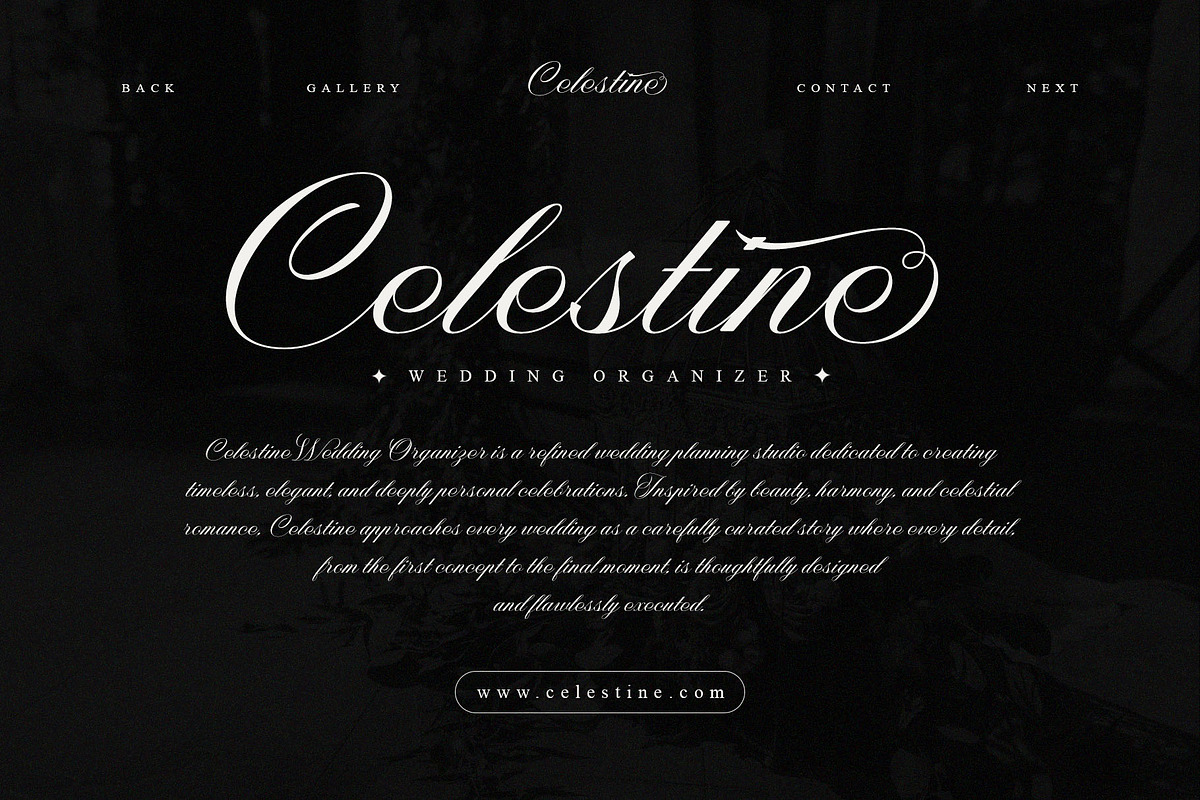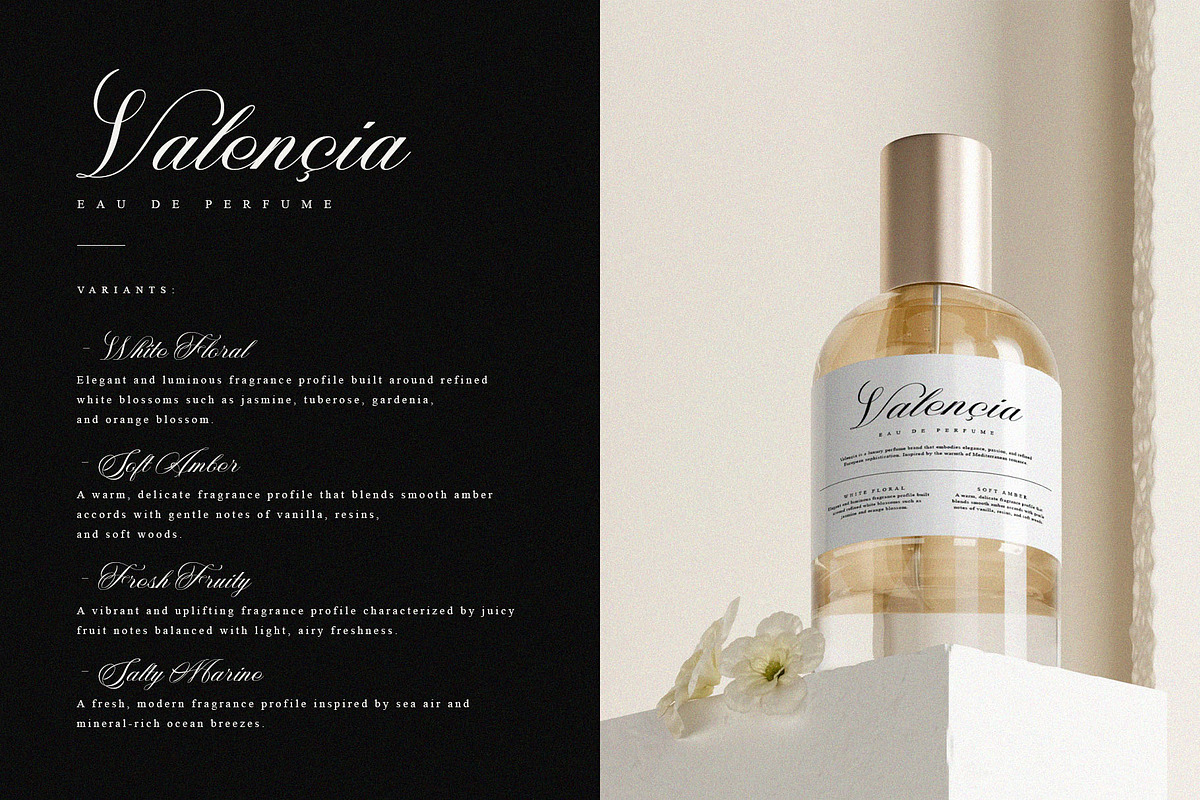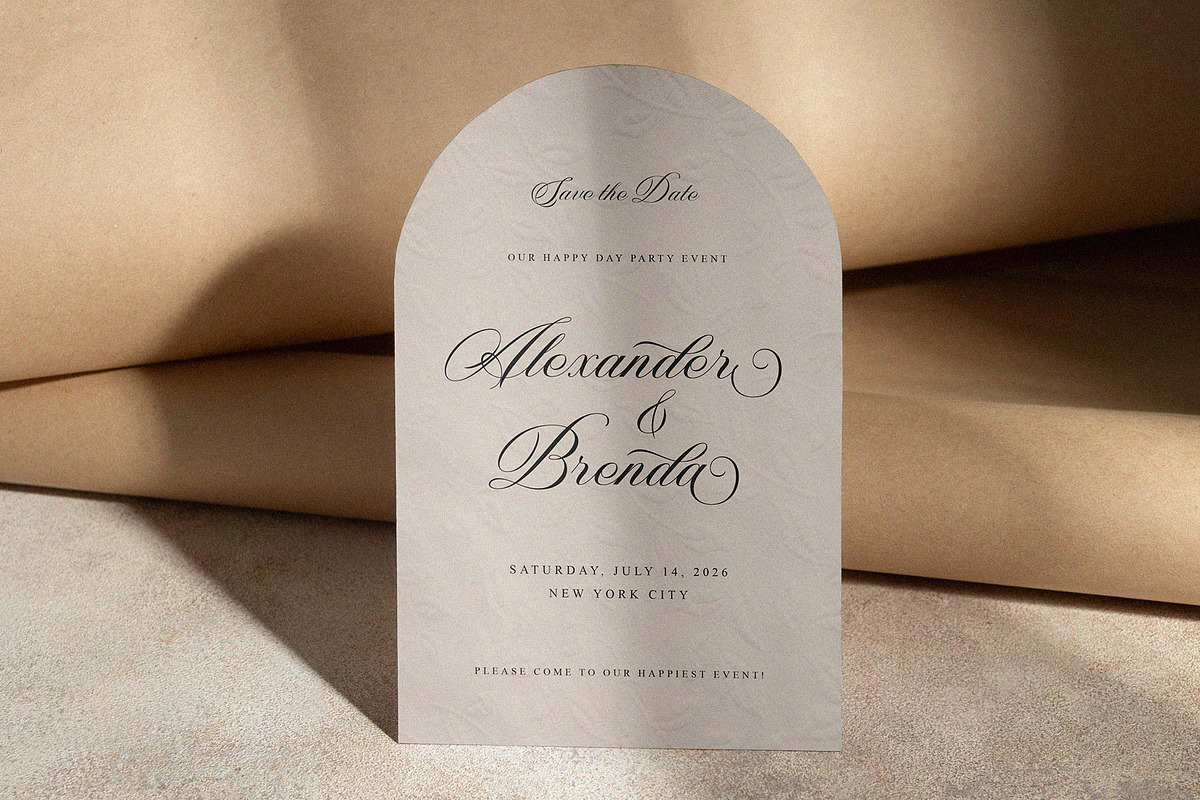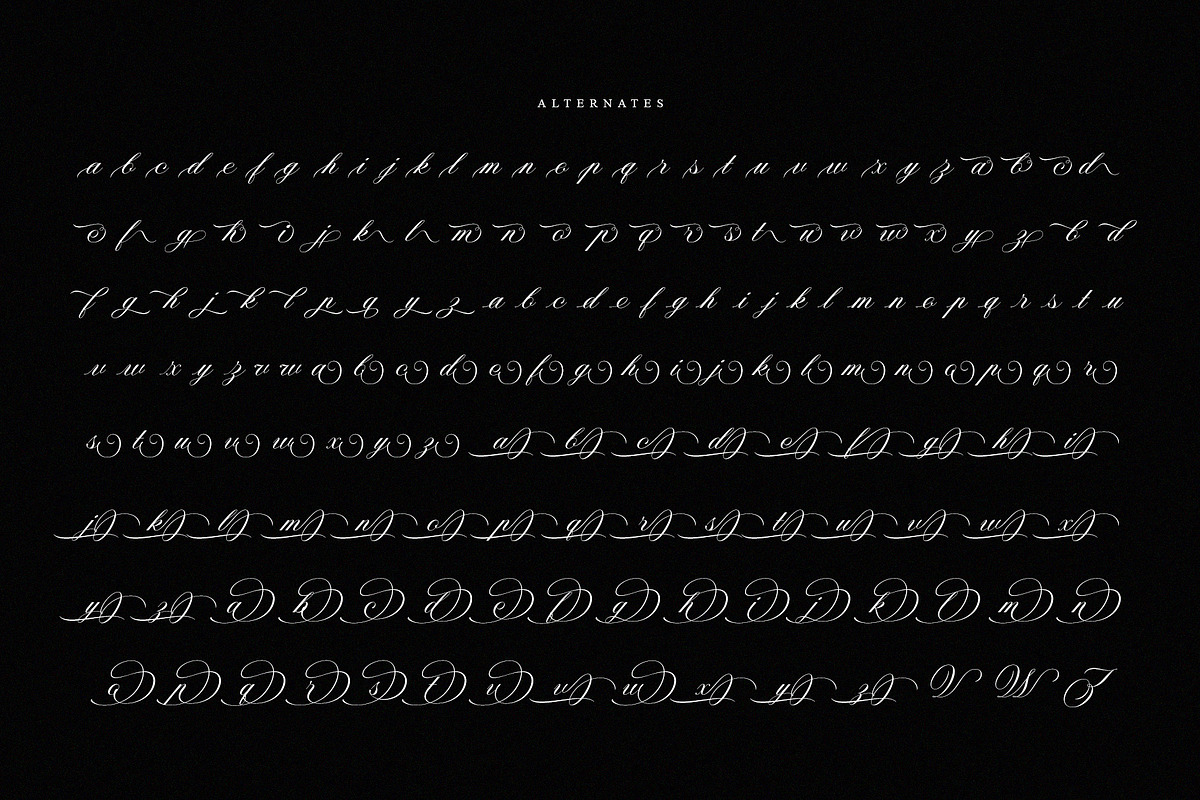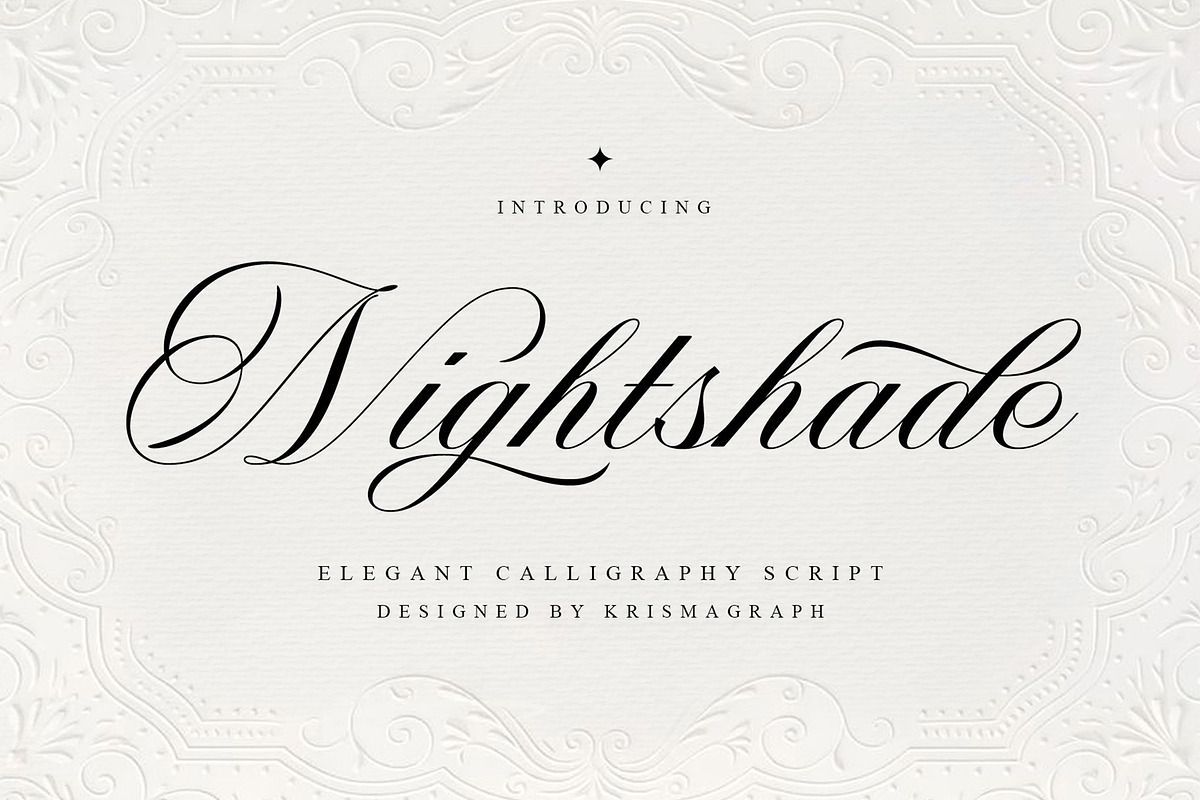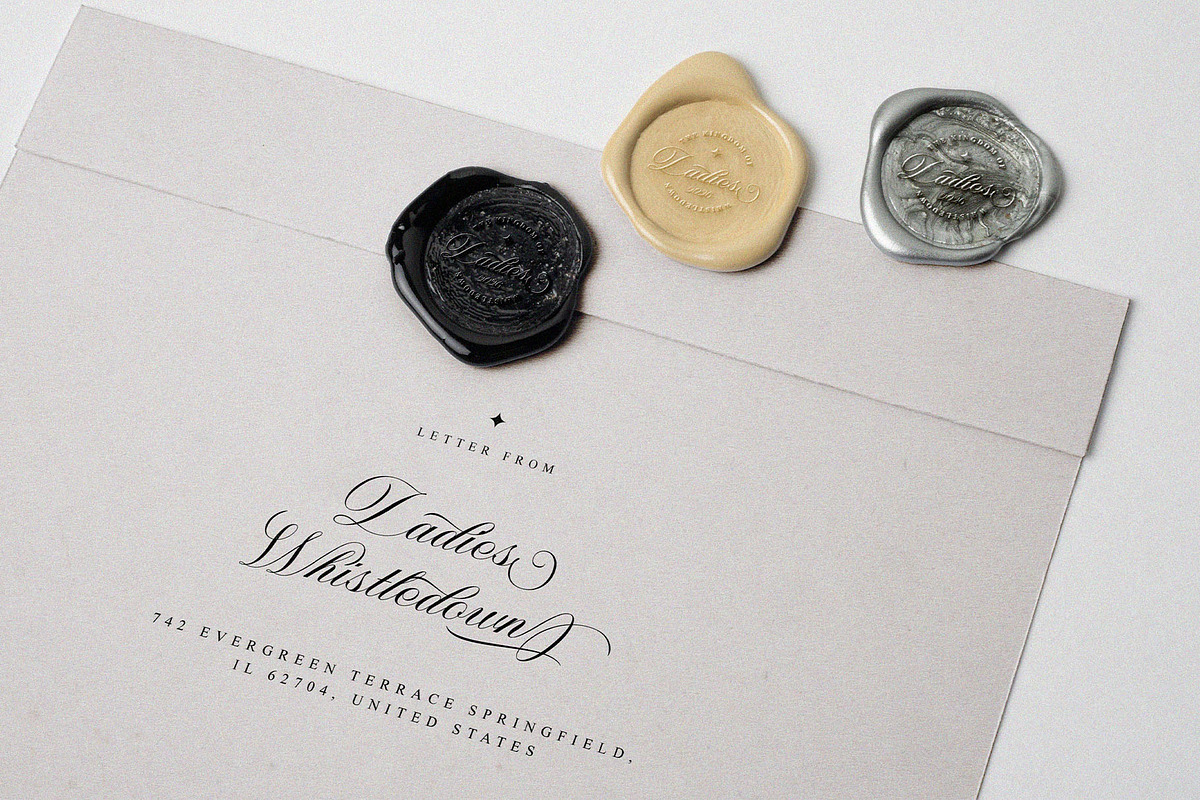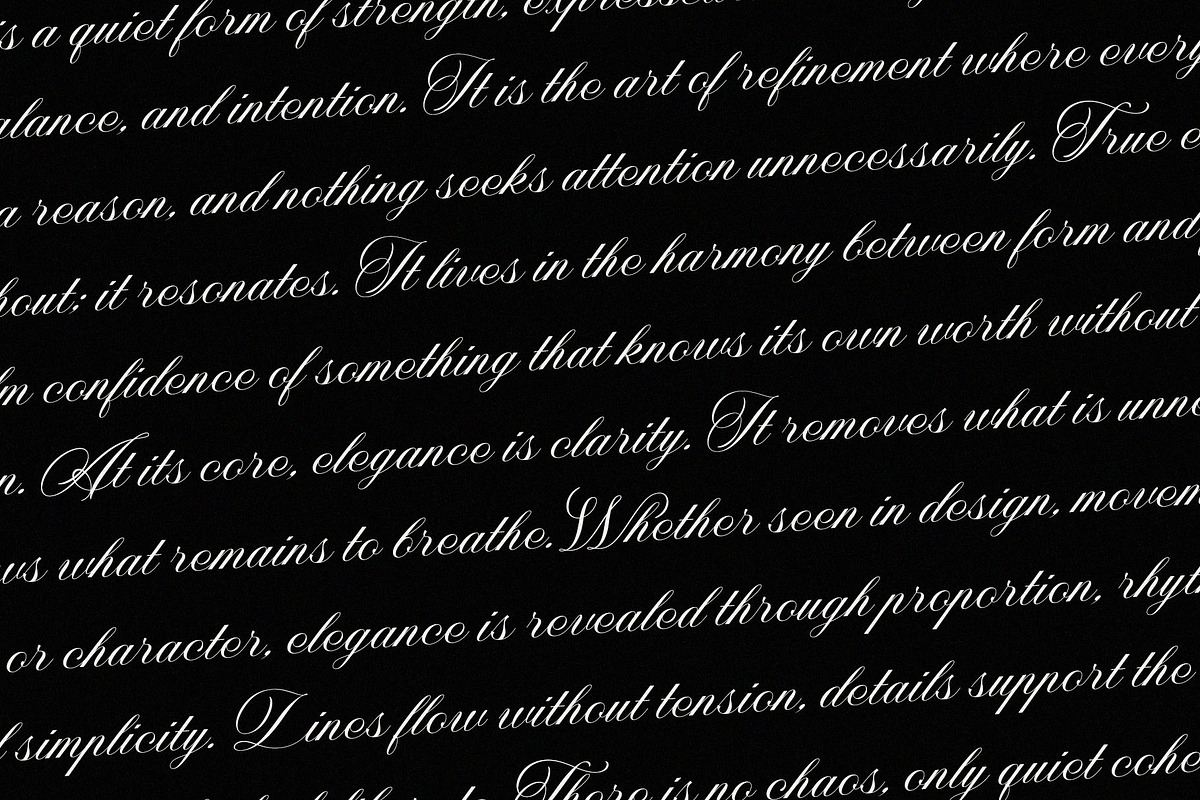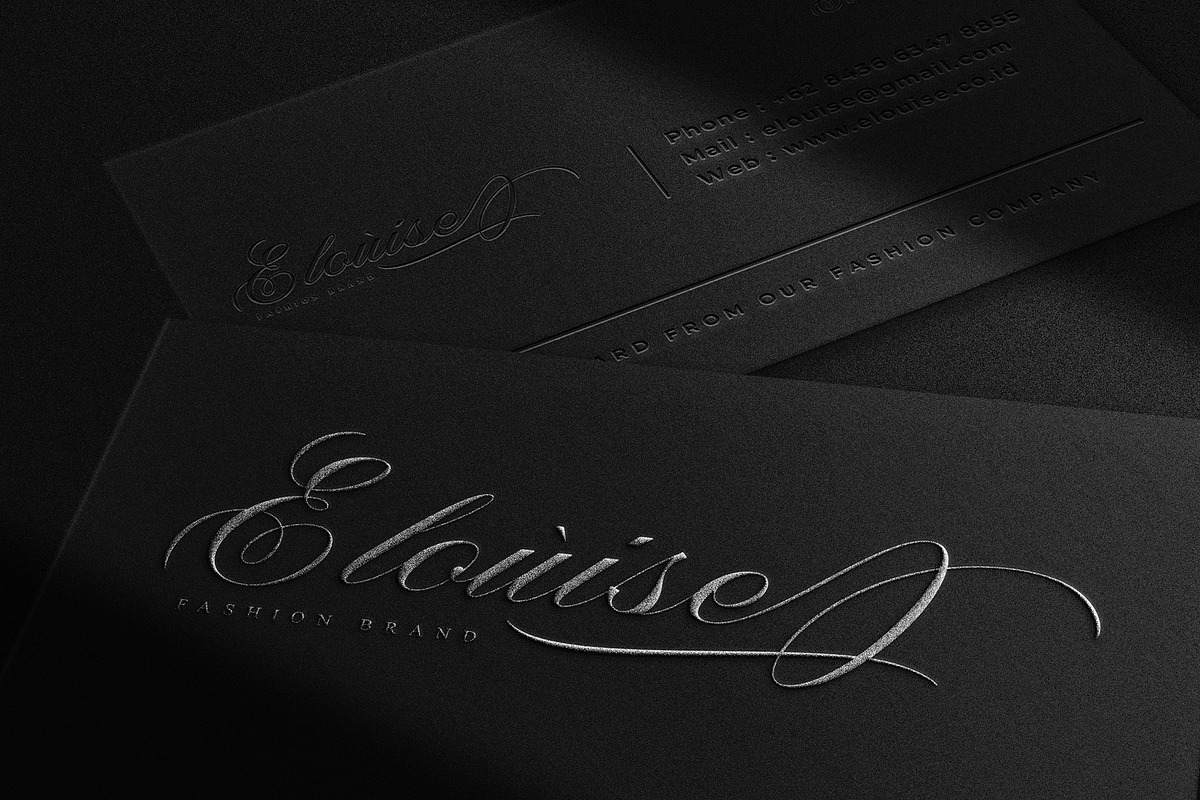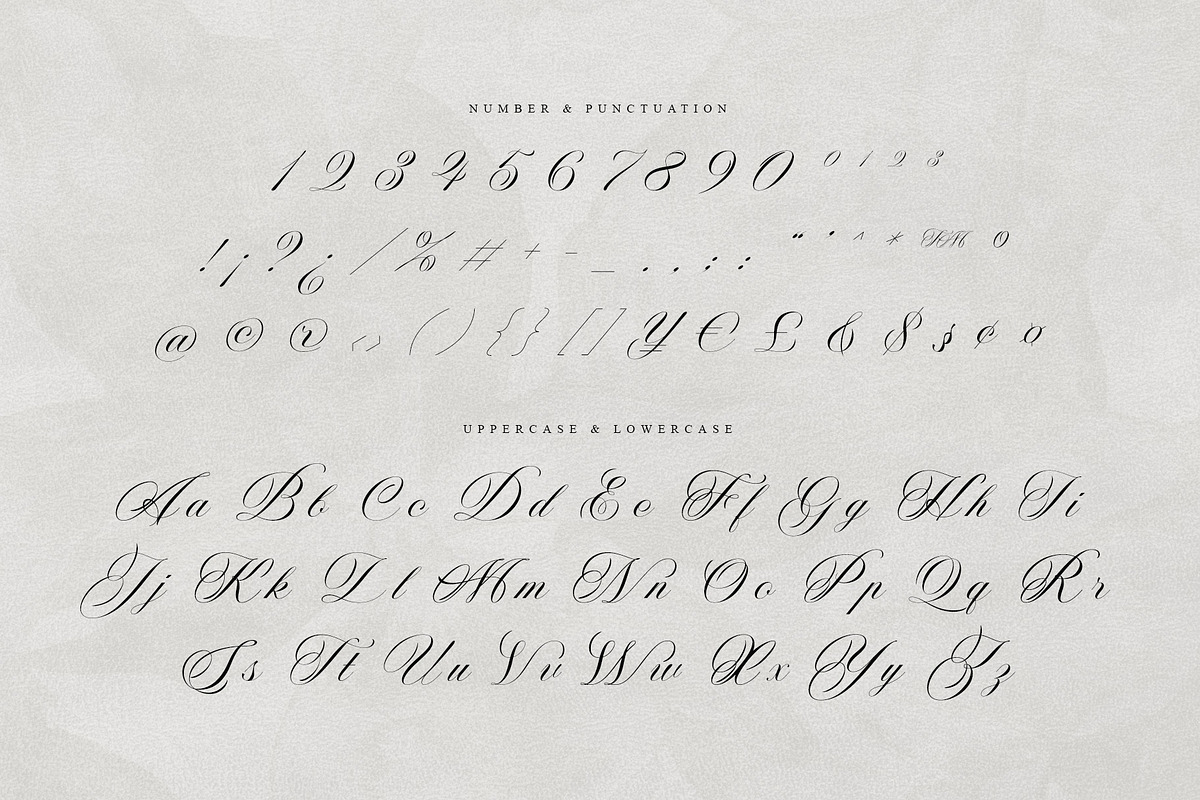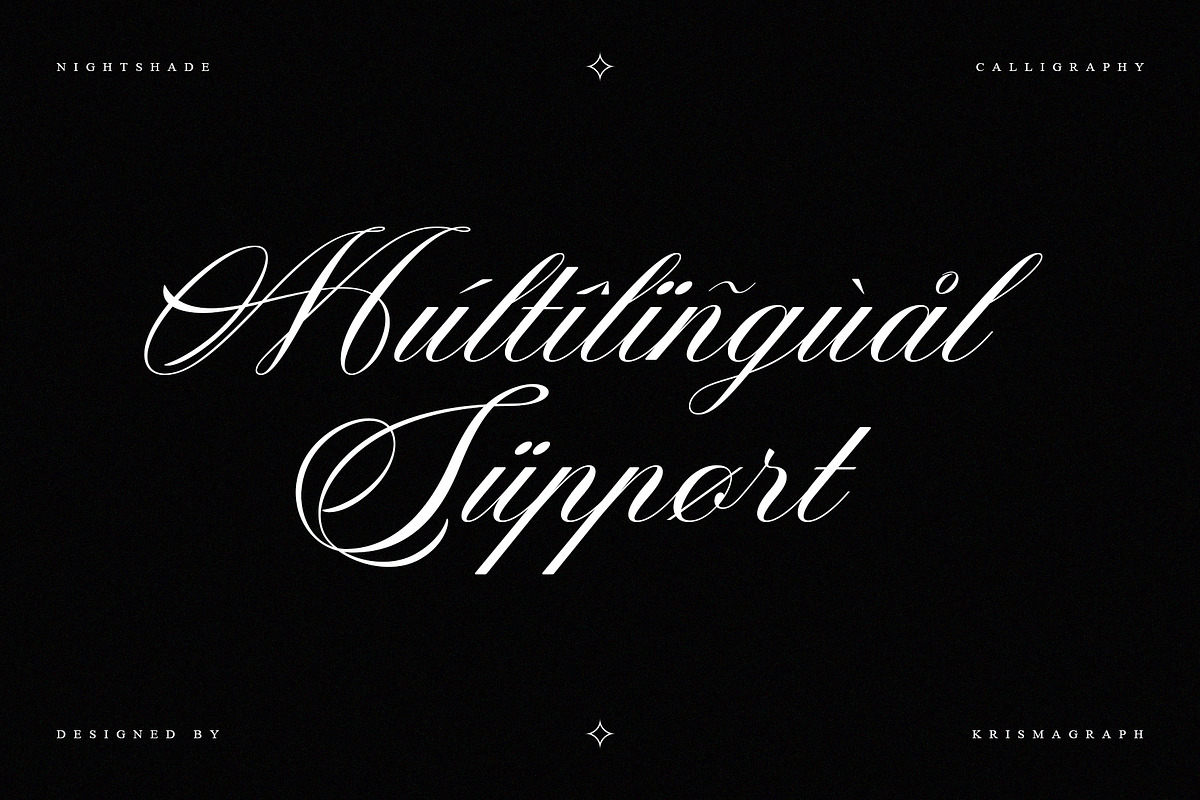
Nightshade – Elegant Calligraphy
Nightshade is an elegant calligraphy script font crafted with flowing strokes and graceful curves. Inspired by classic handwritten lettering and refined calligraphic forms, Nightshade delivers a sophisticated and romantic feel while remaining clean and legible.
This script font is ideal for branding projects, logo design, invitations, packaging, editorial accents, quotes, social media graphics, website headers, and premium visual compositions. Its smooth connections and expressive swashes create a natural handwritten rhythm that adds warmth and personality to any design.
Nightshade is designed for creatives who seek a script font that feels luxurious, timeless, and expressive. Whether used as a focal headline or a decorative accent, Nightshade brings elegance and charm to modern visual storytelling.
- Numbers, fractions
- Punctuation and symbols